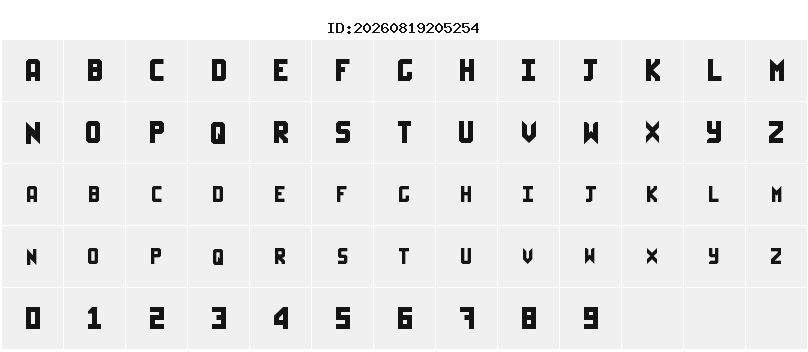
Sheff Preview
• Font Name: Sheff
• Font Style: Gras
• Font ID: Sheff Bold:Version 1.00
• Full Font Name: Sheff Bold
• Version: Version 1.00 January 4, 2013, initial release
• PostScript Name: Sheff-Bold
• Character Count: 71
About Sheff.ttf
Sheff.ttf is a modern, elegant sans-serif font designed for ultimate readability and visual harmony. Perfect for branding, headlines, web design, and print materials.